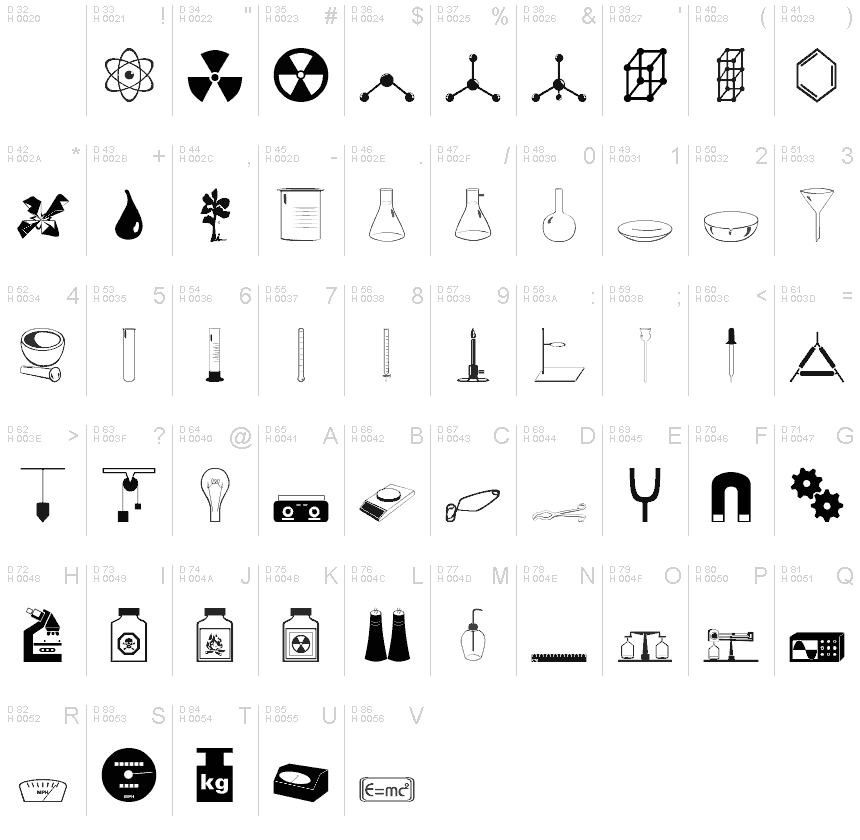
Science
Science is a font that speaks the language of discovery and innovation. This dingbat typeface is meticulously crafted to serve not just as a tool for communication, but as a thematic gateway to the world of scientific exploration. With its array of symbols that encapsulate the essence of research and experimentation, Science stands out with its clean lines and iconic representations.
The aesthetic appeal of Science lies in its clear and recognizable icons that are both functional and artistically intriguing. Its style effortlessly conveys complex concepts through simple imagery, making it an ideal choice for educational materials, laboratory branding, or any creative project where science takes center stage. The precise design of each character ensures maximum impact when used in logos, infographics, or as graphical elements within larger compositions.
Whether you're looking to add a touch of analytical elegance to your work or aiming to communicate scientific themes with clarity and flair, Science provides a versatile toolkit for an array of design projects. Its suitability spans from professional presentations to engaging educational content where visual representation is key. Embrace the intersection of art and science with this unique font that's sure to ignite curiosity and inspire innovation.